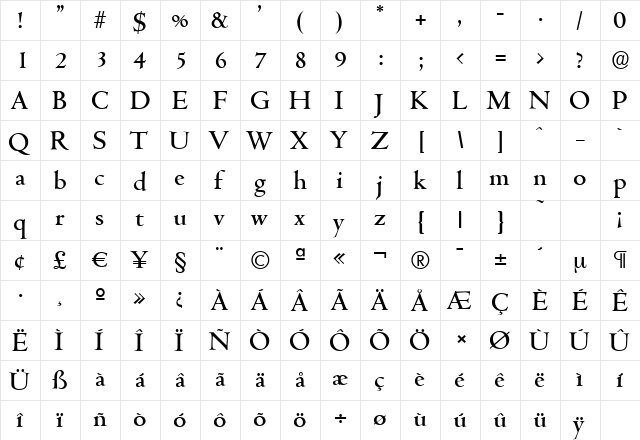
CambridgeSerial-Medium Regular
Design Context for CambridgeSerial-Medium Typeface
CambridgeSerial-Medium is a composed and adaptable typeface that performs quietly and consistently across a wide range of design contexts.